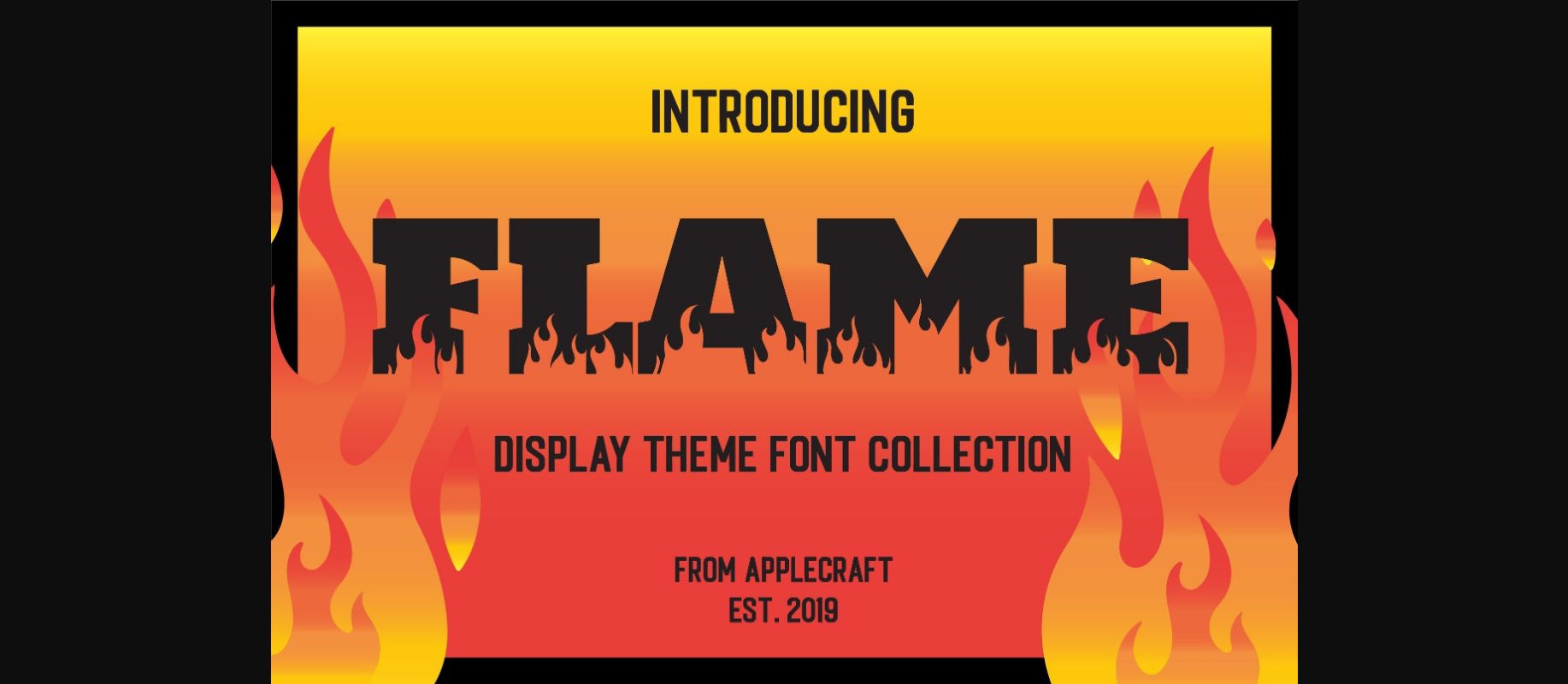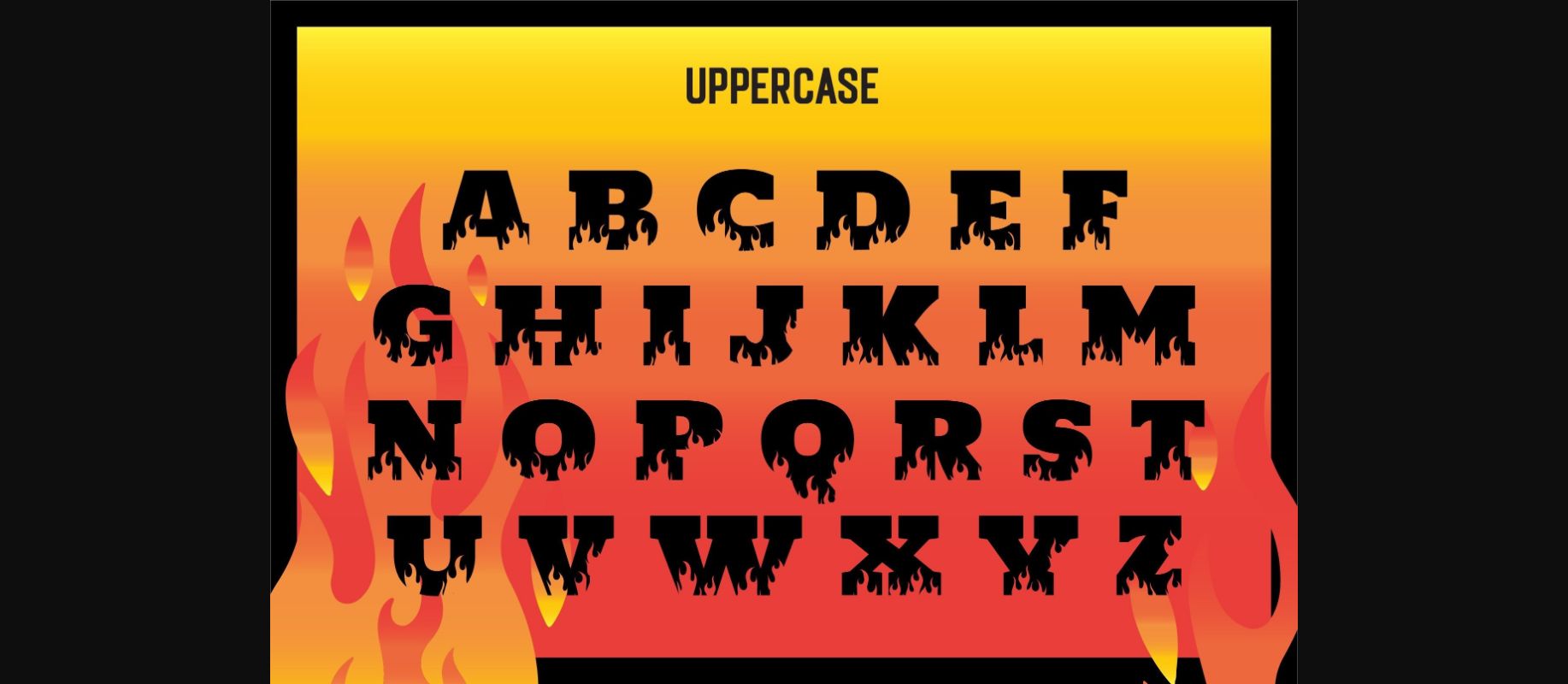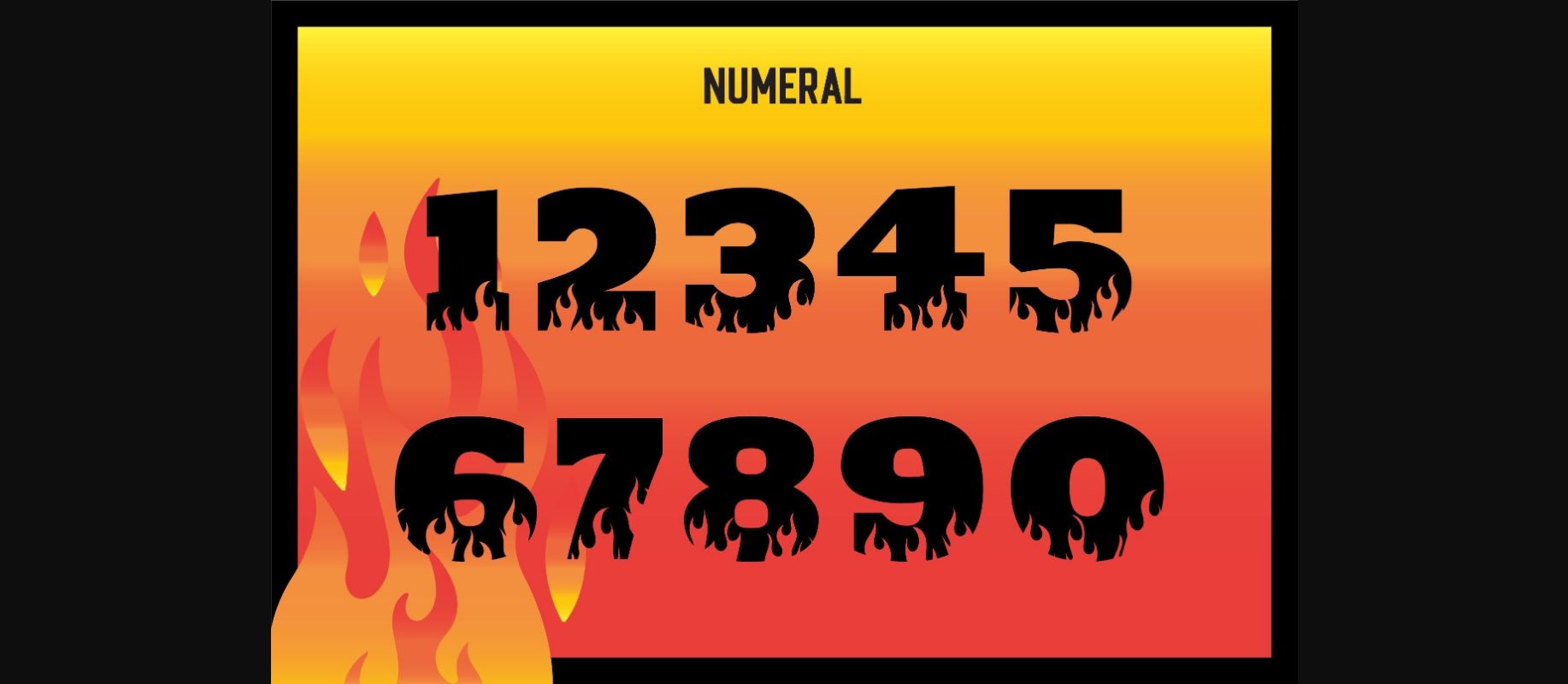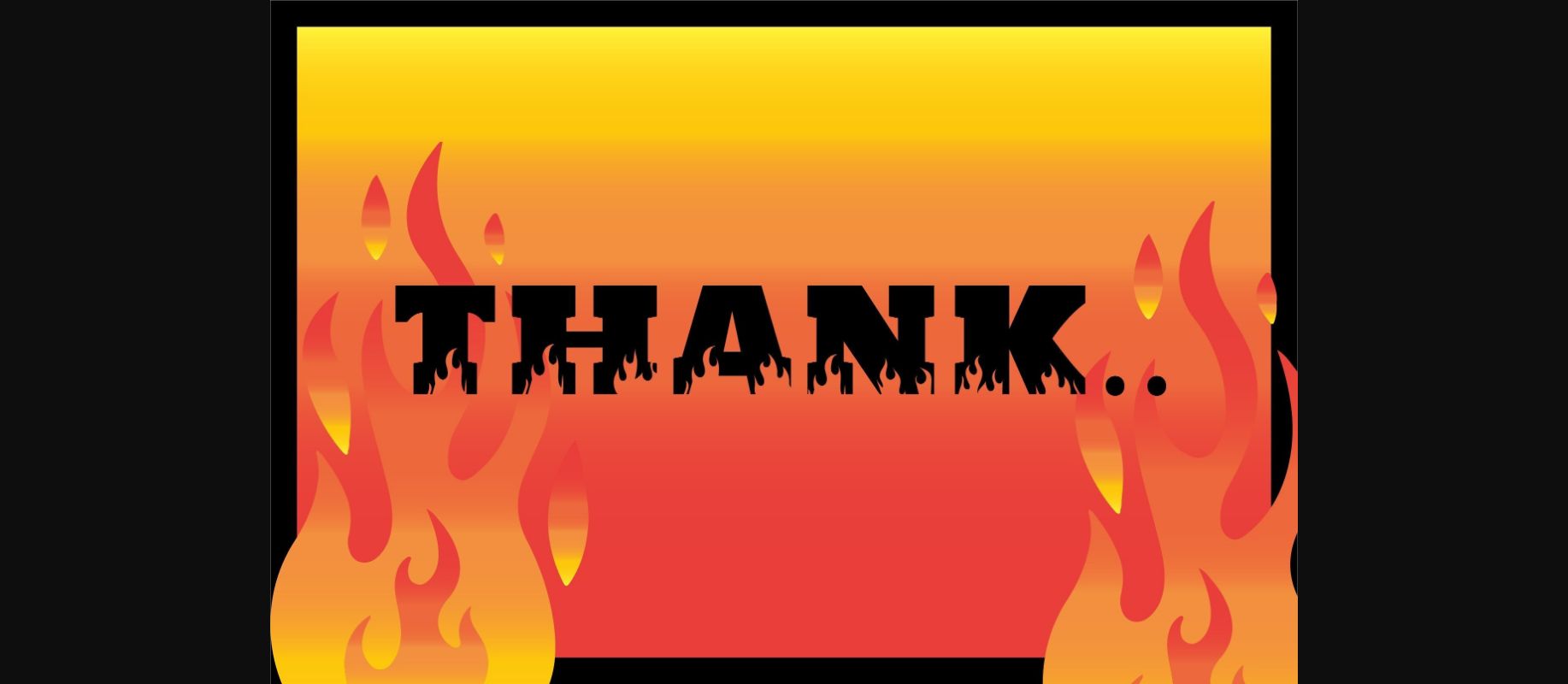
About Flame Font
Flame is a decorative font inspired by fire, perfect for quotes, shirt designs, websites, branding, children’s designs, SVG designs, blogs, logos, invitations, and more!
The capital/lowercase letters are the same.